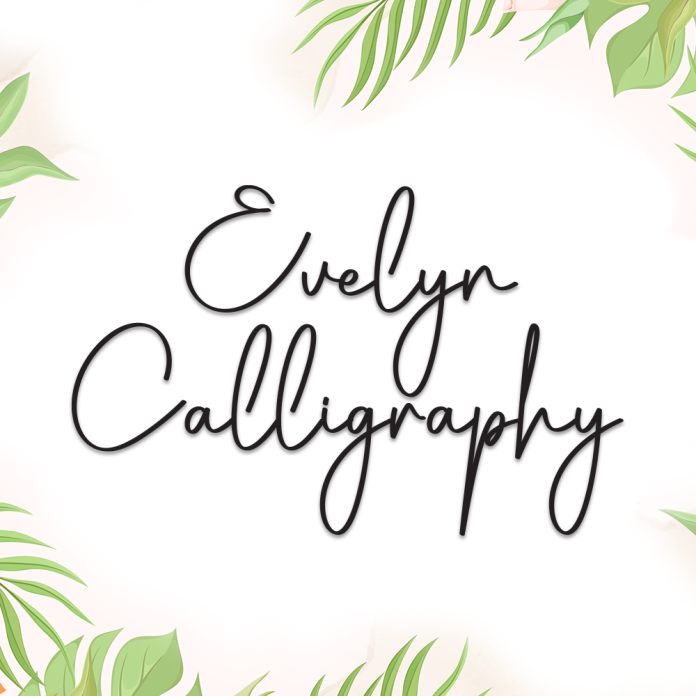
Evelyn Calligraphy is a graceful handwriting font inspired by classic calligraphy with a modern twist. Its smooth, flowing lines and delicate strokes make it perfect for designs that require a touch of elegance and romance.
Ideal for wedding invitations, branding, love quotes, product packaging, and social media content, Evelyn Calligraphy brings sophistication and charm to every project.
Elegant calligraphic handwriting style
Flowing, romantic letterforms with a refined feel
Great for weddings, beauty brands, logos, and heartfelt designs
Add timeless beauty to your work with Evelyn Calligraphy, the perfect font for your most special moments.